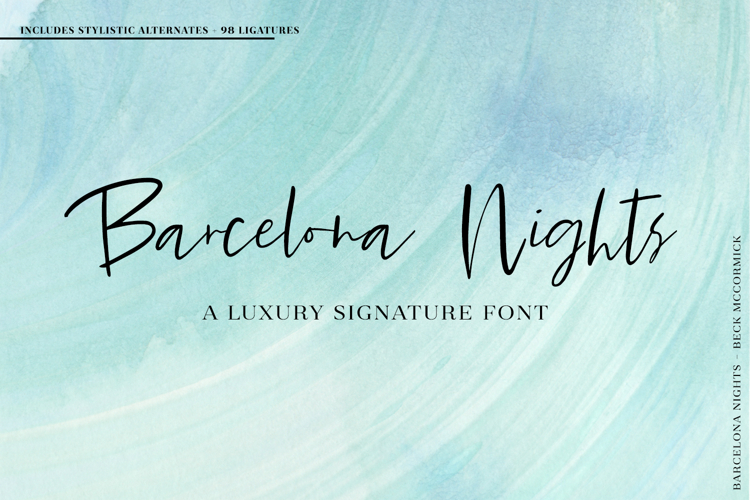
Barcelona Nights Script
Introducing **Barcelona Nights**, *the font* for the summer for a casual yet edgy upscale look.
**Barcelona Nights** is a luxury signature-style font, crafted with a lot love and looking back on nights spent in this beautiful, artistic, hip city. If you are a brand designer, you need this font in your arsenal. It would be perfect for high-end brands for fashion designers, photographers, trendy restaurants, or other edgy modern brands.
**Barcelona Nights** is an incredibly diverse font with robust features — both in the look + feel of the font, and in the programming:
- Includes upper + lowercase letters, numbers, basic punctuation, and Western European language support.
- Includes a full set of stylistic alternate lowercase characters, and 98 ligatures to maximize the handwriting + signature style of the font, so that it mimics handwriting, or a quickly jotted note or scrawl in your favorite notebook.
- Each letter has a different exit stem, so any character connects to the one next to it just a bit differently than other characters, true to handwriting and signatures.
- The baseline is varied and letters vary in thickness, mirroring the look of varied pressure when writing.
- Barcelona Nights is PUA-encoded. It includes a lot of OpenType features best accessed through a Glyphs panel, but its PUA-encoding makes the special characters easy to find in a character map.
**Ligatures Include:**
ab ad af ah ak al am an and ant ar as at att bb bl ca cc cd ce ch ck co dd de dl dt ea eb ed el em en and er es est et ett ex ff ga gh go ha he ho ia ie if il im in is it itt kk la ll ma mm mc na ne nn ns nt oa of oi ol oo os ot ott ou ow oy ph pp pt rr sa se sh si so st su th tt ue ul un us zz
**Discretionary Ligatures Include:**
ll rr